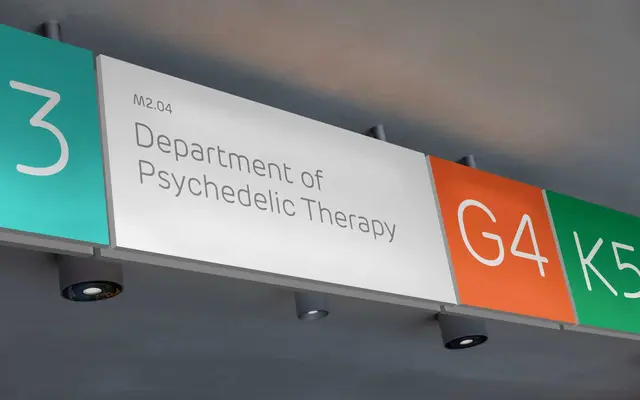
New Rubrik
A fourteen-style grotesque sans in seven weights with matching italics, suited to institutional and corporate applications from text to display sizes.
Running from ExtraLight to ExtraBold with a full italic complement, New Rubrik is a clean grotesque designed to perform across a broad size range. The specimen leans heavily on institutional clients such as the Latvian National Opera, Norwegian Science Data Services and Ferrovie dello Stato Italiane, suggesting a positioning in public-sector and corporate identity. Spacing and weight progression are even, making it a capable workhorse where neutrality and legibility are the priority.
New Rubrik is a grotesque sans-serif with seven weights and matching italics, positioned for neutral professional and institutional use across a wide range of sizes.